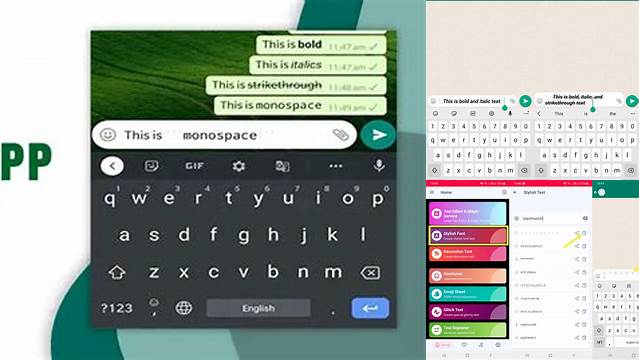
WhatsApp Fonts: How To Change & Use Different Styles
Hey guys! Ever wanted to spice up your WhatsApp chats with some cool fonts? You're in the right place! In this comprehensive guide, we're going to dive deep into the world of WhatsApp fonts and show you exactly how to use them. We’ll cover everything from the built-in formatting options to third-party apps and websites that can help you create truly unique and eye-catching messages. So, whether you're looking to add emphasis, express your personality, or just have some fun, get ready to transform your WhatsApp conversations!
Understanding WhatsApp's Built-In Font Formatting
Let's start with the basics. WhatsApp has some nifty built-in formatting options that allow you to change the appearance of your text without needing any extra tools. These are super easy to use and can instantly make your messages more engaging and easier to read. These simple tricks can really help you emphasize key words or phrases, making your messages more effective and expressive. Mastering these built-in options is the first step to becoming a WhatsApp font pro! The built-in formatting options are a fantastic way to quickly enhance your messages. By using these, you can add emphasis to certain words or phrases, making your text stand out and ensuring your message is clear. Italics are great for adding a soft touch or highlighting a thought, while bold text commands attention and is perfect for important information. Strikethrough is useful for humor or indicating changes, and monospace gives your text a techy feel. These basic tools are surprisingly versatile and can significantly improve the readability and impact of your messages. For instance, if you're coordinating plans with friends, using bold for times and locations ensures everyone sees the crucial details at a glance. If you're sharing a funny anecdote, strikethrough can add a layer of humor by showing a change in thought or a correction. Italics can be used to add a personal touch to your messages, conveying emotion or a softer tone. Experiment with these options to see how they best fit your communication style and the context of your conversations. Remember, effective communication is not just about what you say, but also how you say it. Using these formatting tools thoughtfully can make your messages more engaging and ensure that your intended message is received exactly as you intended. By incorporating these simple yet powerful techniques, you can elevate your WhatsApp game and make your conversations more dynamic and expressive.
How to Use Bold Text
Want to make certain words or phrases pop? Using bold text is the way to go! To make your text bold in WhatsApp, simply place an asterisk () before and after the word or phrase you want to emphasize. For example, if you want to say “This is important,” WhatsApp will display it as “This is important.” This is super useful for highlighting key information or just adding a little oomph to your messages. Bold text is one of the most straightforward ways to add emphasis to your WhatsApp messages. By surrounding a word or phrase with asterisks (), you can instantly draw the reader's eye to that particular part of your text. This is incredibly useful for highlighting crucial details, such as meeting times, locations, or specific instructions. For example, if you're organizing a get-together, you might write, "Don't forget we're meeting at 8 PM at the usual spot!" The bold text immediately grabs attention and ensures the recipient doesn't miss this key piece of information. Beyond just practicality, bold text can also be used to convey excitement or strong feelings. Imagine you're sharing good news with a friend; you could say, "I got the job! I'm so excited!" The bolded phrase amplifies your enthusiasm and makes the message more impactful. It's a simple yet effective way to add emotional weight to your words. In addition to individual words or phrases, you can also bold entire sentences or even paragraphs if you want to make a significant statement. However, it's best to use this sparingly, as overusing bold text can make your message appear cluttered and less readable. Think of it as a spice – a little can enhance the flavor, but too much can overwhelm the dish. Experiment with different ways to incorporate bold text into your messages to find the right balance. You might use it for headers in a longer message to break up the text and make it easier to scan, or you could use it to highlight the main points in a list. The key is to use it intentionally and strategically to maximize its impact. By mastering the art of bold text, you can significantly improve the clarity and expressiveness of your WhatsApp communication, ensuring your messages are both seen and felt.
How to Use Italic Text
Need to add a subtle touch or emphasize a thought? Italics are your friend! To italicize text in WhatsApp, just put an underscore () before and after the word or phrase. For instance, if you want to say “This is interesting,” WhatsApp will show it as “This is interesting.” Italic text is a versatile tool for adding nuance and subtlety to your WhatsApp messages. Unlike bold text, which commands attention with its strong visual presence, italics offer a more gentle emphasis, perfect for conveying thoughts, emotions, or asides. By surrounding a word or phrase with underscores (), you can subtly highlight it, drawing the reader's eye without overwhelming the text. This makes italics ideal for situations where you want to add a touch of personality or convey a softer tone. For example, if you're sharing a personal thought or reflection, using italics can add a layer of intimacy to your message. You might say, "I was thinking about our conversation earlier," to indicate that you're delving into your thoughts. Italic text can also be used to emphasize a word or phrase in a less forceful way than bold. If you want to highlight a particular point without making it seem like a shout, italics are a great option. Imagine you're giving someone directions; you could say, "Turn left at the next intersection." The italicized word stands out, guiding the recipient without being overly assertive. Furthermore, italics are often used to denote titles of books, movies, or other works of art in written communication. While WhatsApp doesn't technically adhere to formal writing conventions, using italics in this way can add a touch of sophistication to your messages. If you're recommending a book to a friend, you might say, "Have you read To Kill a Mockingbird?" This subtle cue helps the recipient understand that you're referring to a title. Experimenting with italic text can help you develop a more expressive and nuanced communication style on WhatsApp. It's a valuable tool for adding layers of meaning to your messages and ensuring that your tone is conveyed accurately. Whether you're sharing a heartfelt sentiment, offering a gentle reminder, or simply want to add a touch of flair to your writing, italics can help you do it with style. By mastering this simple formatting trick, you can elevate your WhatsApp conversations and make them more engaging and personal.
How to Use Strikethrough Text
Want to add a bit of humor or show that something is no longer relevant? Strikethrough is the way to go! To use strikethrough, place a tilde (~) before and after the text. For example, if you type “This is ~not~ the right answer,” WhatsApp will display it as “This is not the right answer.” Strikethrough text is a quirky and versatile formatting option on WhatsApp that can add a touch of humor, indicate corrections, or simply show that something is no longer valid. By placing a tilde (~) before and after the text you want to strike through, you create a visual effect that suggests deletion or cancellation. This can be particularly useful in a variety of contexts, from making lighthearted jokes to clarifying changes in plans. One of the most common uses of strikethrough is to add a playful or humorous element to your messages. Imagine you're teasing a friend and you want to show that you're retracting a statement in a fun way. You might say, "I thought your outfit was… ~amazing~ okay, it's pretty good." The strikethrough adds a layer of irony, making the message more engaging and entertaining. Strikethrough is also incredibly practical for correcting mistakes or indicating changes in real-time conversations. If you're coordinating plans with someone and need to adjust the time or location, using strikethrough can clearly show the original information while providing the updated details. For example, you could write, "Let's meet at ~7 PM~ 8 PM instead." This prevents confusion and ensures everyone is on the same page. In addition to corrections, strikethrough can be used to show that something is no longer relevant or applicable. If you're listing items you need to buy at the grocery store and you've already purchased one, you can strike it off the list to indicate it's taken care of. This can be a handy way to keep your messages organized and up-to-date. Furthermore, strikethrough can be used creatively to convey a sense of irony or sarcasm. If you want to express a sentiment that is the opposite of what you're saying, strikethrough can add a subtle layer of meaning. For instance, you might say, "This weather is ~lovely~ terrible." The strikethrough signals that you're being sarcastic, allowing you to communicate your true feelings in a playful way. By mastering the art of strikethrough, you can add a unique and engaging element to your WhatsApp conversations. It's a simple yet effective tool for injecting humor, clarifying information, and expressing yourself in a creative way. Whether you're making a joke, correcting a mistake, or simply want to add a bit of flair to your messages, strikethrough can help you do it with style.
How to Use Monospace Text
Want to give your text a techy, old-school vibe? Monospace is the answer! To use monospace font in WhatsApp, place three backticks () before and after your text. For example, if you type “This is monospace,” WhatsApp will display it in a monospace font. Monospace text is a unique and stylish formatting option on WhatsApp that gives your messages a distinct, retro aesthetic. Unlike the default proportional font, where letters have varying widths, monospace fonts have a fixed width for each character. This creates a uniform, typewriter-like appearance that can be particularly effective for certain types of messages. To use monospace font in WhatsApp, simply enclose your text with three backticks () before and after. This simple trick transforms your text into a monospaced format, instantly giving it a techy, old-school vibe. One of the most common uses of monospace text is to share code snippets or technical information. The fixed-width characters make it easier to read and distinguish different parts of the code, such as variables, commands, and comments. If you're collaborating with colleagues on a programming project or sharing a helpful tip with a tech-savvy friend, monospace is an excellent way to format your code for clarity. In addition to code, monospace can be used to highlight specific words or phrases in a message, giving them a distinct visual presence. If you want to draw attention to a particular term or concept, using monospace can make it stand out from the surrounding text. This can be especially useful in educational contexts or when explaining complex topics. Imagine you're teaching someone about the importance of using functions in programming; the monospace formatting immediately highlights the term and emphasizes its significance. Monospace can also be used creatively to add a touch of personality to your messages. The retro look and feel of monospace fonts can evoke a sense of nostalgia or add a unique flair to your writing. If you want to make your messages stand out from the crowd, experimenting with monospace can be a fun and effective way to do it. You might use it for headings, quotes, or even entire messages to create a distinctive visual style. Furthermore, monospace can be helpful for aligning text in a precise and uniform manner. Because each character occupies the same width, you can create simple tables or lists with consistent spacing. This can be particularly useful for sharing data or information in an organized way. By mastering the use of monospace text, you can add a versatile and stylish tool to your WhatsApp formatting arsenal. Whether you're sharing code, highlighting key terms, or simply want to give your messages a unique look, monospace can help you do it with flair.
Exploring Third-Party Apps for Fancy Fonts
Okay, so you've mastered the basics, but what if you want to go even further? That's where third-party apps come in! There are tons of apps out there that let you generate fancy fonts that you can then copy and paste into WhatsApp. These apps open up a whole new world of possibilities, allowing you to use a wide variety of stylish fonts that aren't available in WhatsApp's built-in options. Third-party apps for fancy fonts are a fantastic way to expand your font options on WhatsApp beyond the built-in formatting tools. These apps typically offer a wide array of stylish and unique fonts that can add a personal touch to your messages. Using these apps is generally straightforward: you type your text into the app, choose your desired font, and then copy and paste the formatted text into your WhatsApp chat. This allows you to express yourself in creative and visually appealing ways that aren't possible with the standard WhatsApp fonts. One of the key benefits of using these apps is the sheer variety of fonts available. You can find fonts that range from elegant and sophisticated to playful and whimsical, allowing you to match your font to your mood or the context of the conversation. Whether you want to add a touch of flair to a birthday message or create a professional-looking announcement, there's likely a font out there that fits the bill. Many of these apps also offer additional customization options, such as the ability to change the size, color, or spacing of your text. This gives you even more control over the appearance of your messages, allowing you to create truly unique and eye-catching text. However, it's essential to choose these third-party apps carefully. Not all apps are created equal, and some may contain malware or track your data without your consent. Before downloading any app, be sure to read reviews and check the developer's reputation. It's also a good idea to review the app's privacy policy to understand how your data will be used. In addition to security concerns, it's also worth noting that some fonts may not display correctly on all devices. While most popular fonts are widely supported, some of the more obscure or decorative fonts may appear as boxes or question marks on older phones or devices with limited font support. To minimize this issue, it's best to stick to fonts that are relatively common and well-established. Despite these potential drawbacks, third-party font apps can be a valuable tool for enhancing your WhatsApp communication. They offer a simple and convenient way to add personality and style to your messages, making your conversations more engaging and expressive. By choosing your apps wisely and testing your fonts on different devices, you can enjoy a world of creative possibilities and make your WhatsApp chats truly stand out.
Popular Font Apps
There are several popular font apps available for both Android and iOS devices. Some of the top choices include:
- Fonts - Keyboard & Font Changer: This app offers a wide variety of fonts and a custom keyboard for easy access.
- Stylish Text: A simple and user-friendly app with a good selection of stylish fonts.
- Fontsy: This app focuses on creating stylish text for social media and messaging apps.
These apps typically work by generating Unicode characters that resemble different fonts. This means that the text you create can be seen on any device, even if the recipient doesn't have the same font installed. Popular font apps provide a diverse range of options for users looking to enhance their text styling on WhatsApp and other platforms. These applications typically offer a variety of fonts, ranging from classic styles to more modern and decorative designs. This allows users to express their creativity and personalize their messages in unique ways. One of the key advantages of using popular font apps is the ease of integration with WhatsApp and other messaging platforms. Most of these apps work by generating text in Unicode characters, which are widely supported across different devices and operating systems. This means that the fancy fonts you create will be visible to your recipients, regardless of the device they are using. This is a significant advantage over using custom fonts that may require the recipient to have the same font installed on their device. Popular font apps often come with a range of additional features that enhance the user experience. Some apps offer custom keyboards that allow you to easily switch between different fonts while typing, while others provide tools for creating stylish text decorations, such as borders, symbols, and emojis. These features can add an extra layer of creativity to your messages and make them stand out from the crowd. When choosing a popular font app, it's essential to consider factors such as the number of fonts available, the ease of use, and the app's compatibility with your device and operating system. It's also a good idea to read reviews and check the app's ratings to ensure that it's reliable and safe to use. Some popular font apps also offer premium features, such as access to exclusive fonts or the ability to remove ads. While these features can enhance the user experience, they often come at a cost, so it's essential to weigh the benefits against the price before making a decision. Overall, popular font apps are a valuable tool for anyone looking to add a touch of personality and style to their WhatsApp messages. With a wide range of fonts and features available, these apps make it easy to express yourself in creative and visually appealing ways.
How to Use Font Apps
Using a font app is usually pretty straightforward. Here’s a general guide:
- Download and install the app from your app store.
- Open the app and type your message in the provided text box.
- Browse the available fonts and select the one you like.
- Tap the “Copy” button (or similar) to copy the formatted text.
- Open WhatsApp, go to your chat, and paste the text into the message box.
- Send your message, and voila! Your fancy font will appear.
It’s that simple! Using font apps to add flair to your WhatsApp messages is a straightforward process that can significantly enhance your communication style. These apps typically offer a user-friendly interface that makes it easy to create stylish text in just a few simple steps. The first step in using a font app is to download and install it from your device's app store. Once the app is installed, you can open it and begin typing your message in the provided text box. This text box serves as a canvas where you can craft your message before applying any font styles. After typing your message, the next step is to browse through the available font options. Font apps often offer a wide variety of fonts, ranging from elegant scripts to bold and modern designs. You can scroll through the font list and select the one that best suits your message and personal style. Some apps even allow you to preview your text in different fonts, making it easier to choose the perfect one. Once you've selected your desired font, the next step is to copy the formatted text. Most font apps provide a